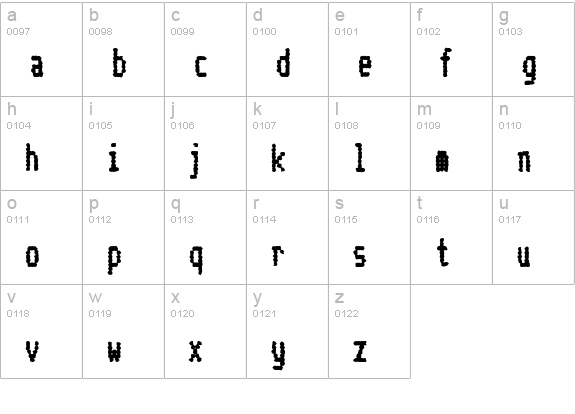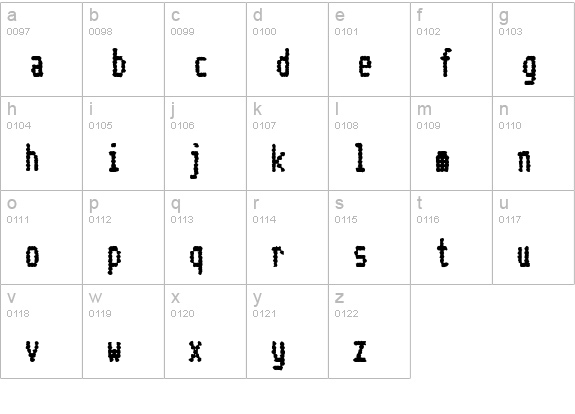
Telidon Ink CdHv Font Details
Telidon Ink CdHv font is a unique and eye-catching typeface that exudes a sense of creativity and edginess. With its bold, ink-like strokes and sharp edges, this font is perfect for creating designs that demand attention and make a statement. The jagged lines and uneven spacing give Telidon Ink CdHv a raw and handcrafted feel, adding a touch of authenticity to any project. What makes Telidon Ink CdHv even more appealing is that it is available for free download at FontsMarket.com. Whether you're working on a poster, logo, or any other design project, this font is sure to elevate your work and make it stand out. Don't miss out on the opportunity to add Telidon Ink CdHv to your font collection today!